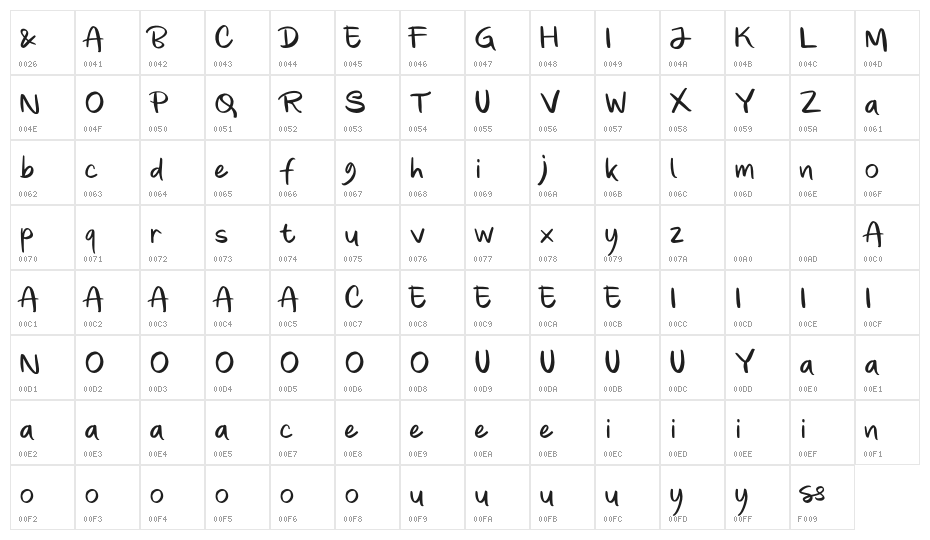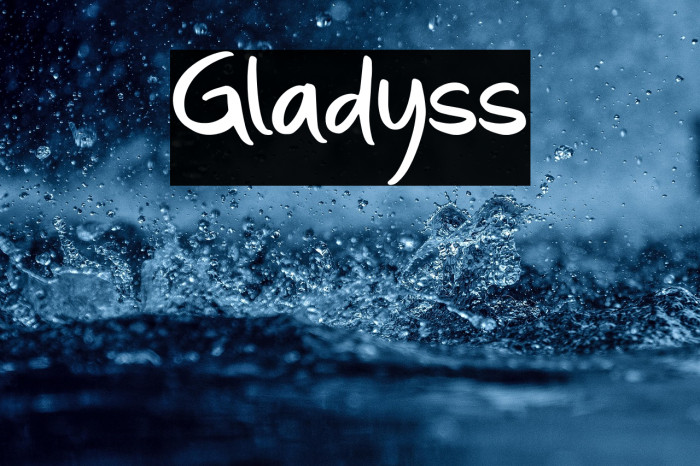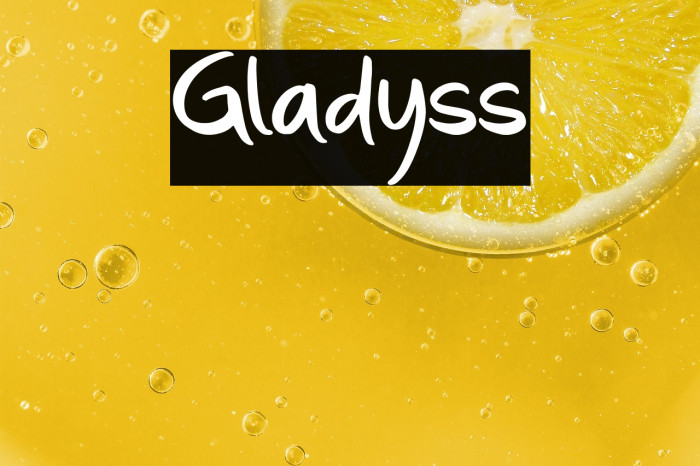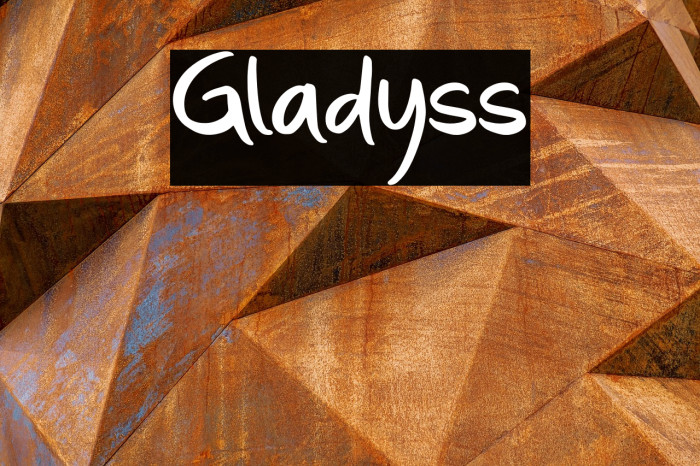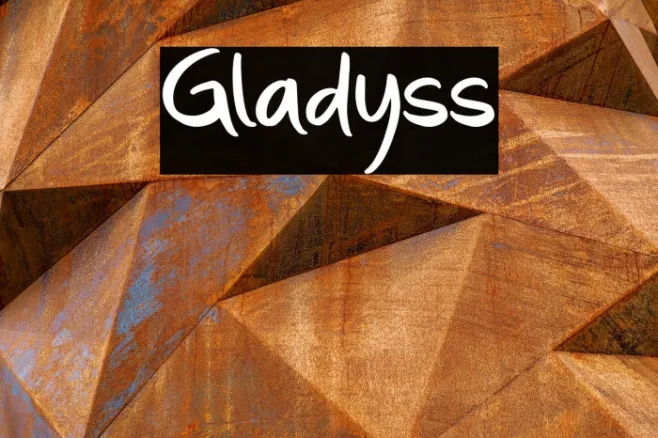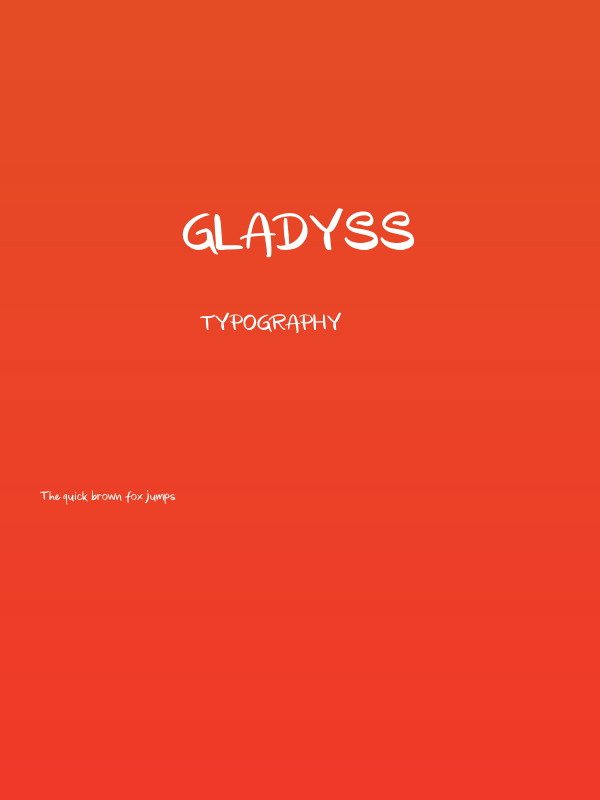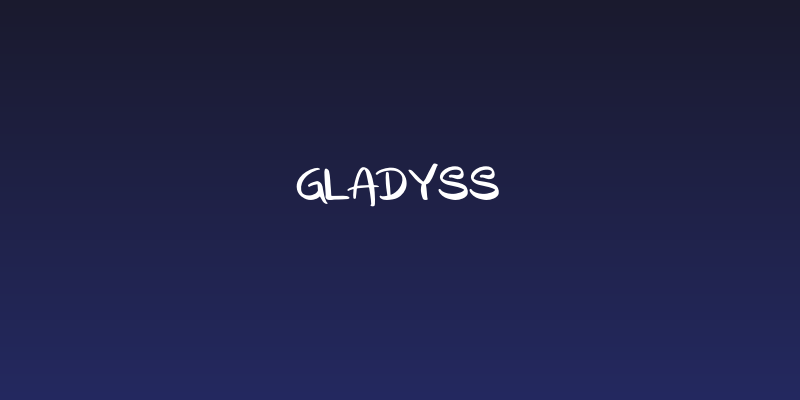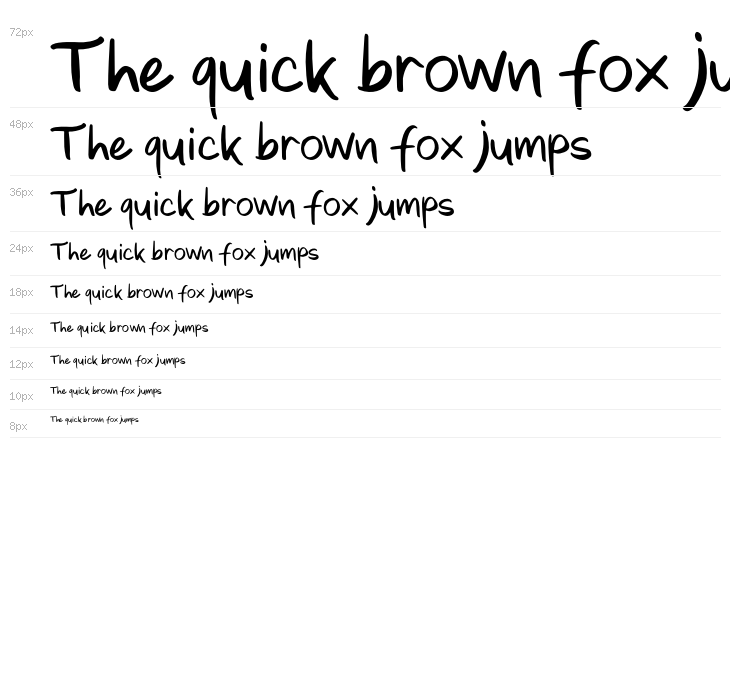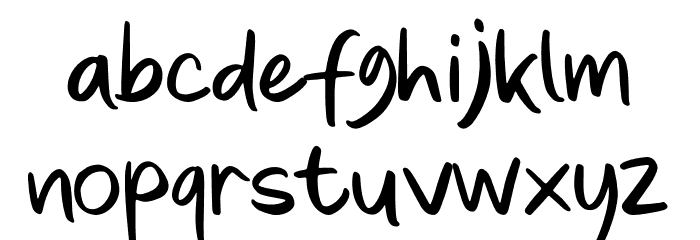
Gladyss Font
Gladyss Description
This font exudes a playful and casual handwritten style, characterized by its smooth, flowing curves and slightly irregular letterforms. The uppercase letters are bold and confident, while the lowercase letters maintain a friendly and approachable demeanor. The strokes are consistent in width, providing a harmonious appearance across all characters. The font's informal nature makes it ideal for projects that require a personal touch, such as greeting cards, invitations, or creative branding. Its legibility is maintained even at smaller sizes, making it versatile for various design needs.
| Proposed Projects | Ideal for greeting cards, invitations, creative branding, and personal projects. |